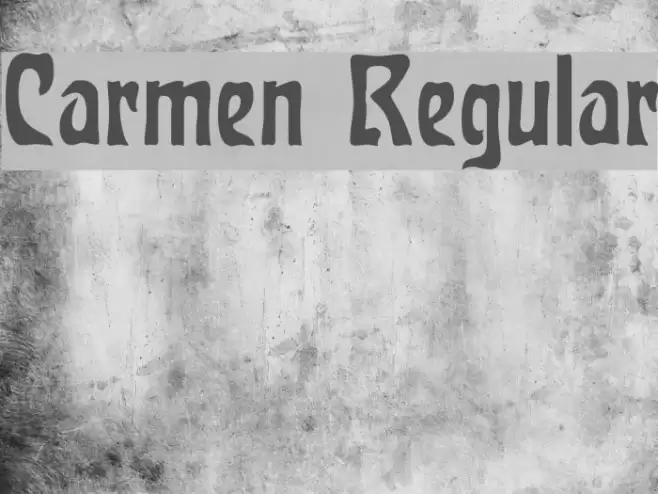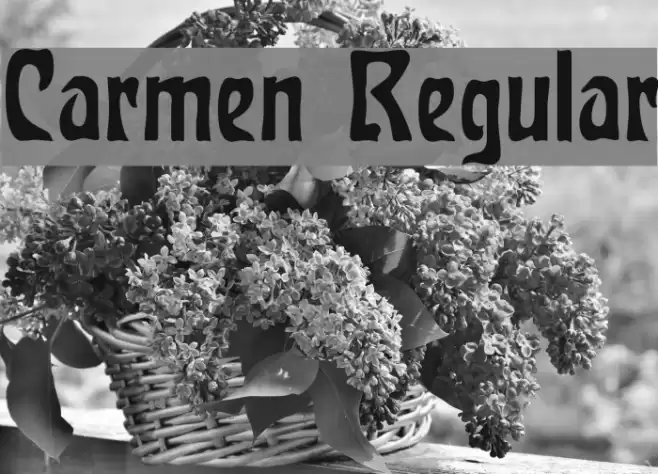
Carmen Regular Font
Carmen Regular Description
This font features a bold and dynamic style with a strong presence. The characters are uniquely shaped with a slightly irregular and hand-crafted appearance, giving it a distinctive and artistic flair. The uppercase letters are robust and commanding, while the lowercase letters maintain a consistent style with a touch of whimsy. The numerals are bold and easily readable, complementing the overall design. Special characters are creatively designed, adding to the font's versatility. This font is ideal for projects that require a bold statement and a touch of creativity.
A bold, artistic font with a hand-crafted appearance, perfect for creative projects from Uncategorized fonts.
- Proposed Projects: Ideal for posters, branding, headlines, and any project needing a bold, artistic touch.
- Overall Style: Artistic, Bold, Creative
- Use Case: Headlines, Branding, Posters